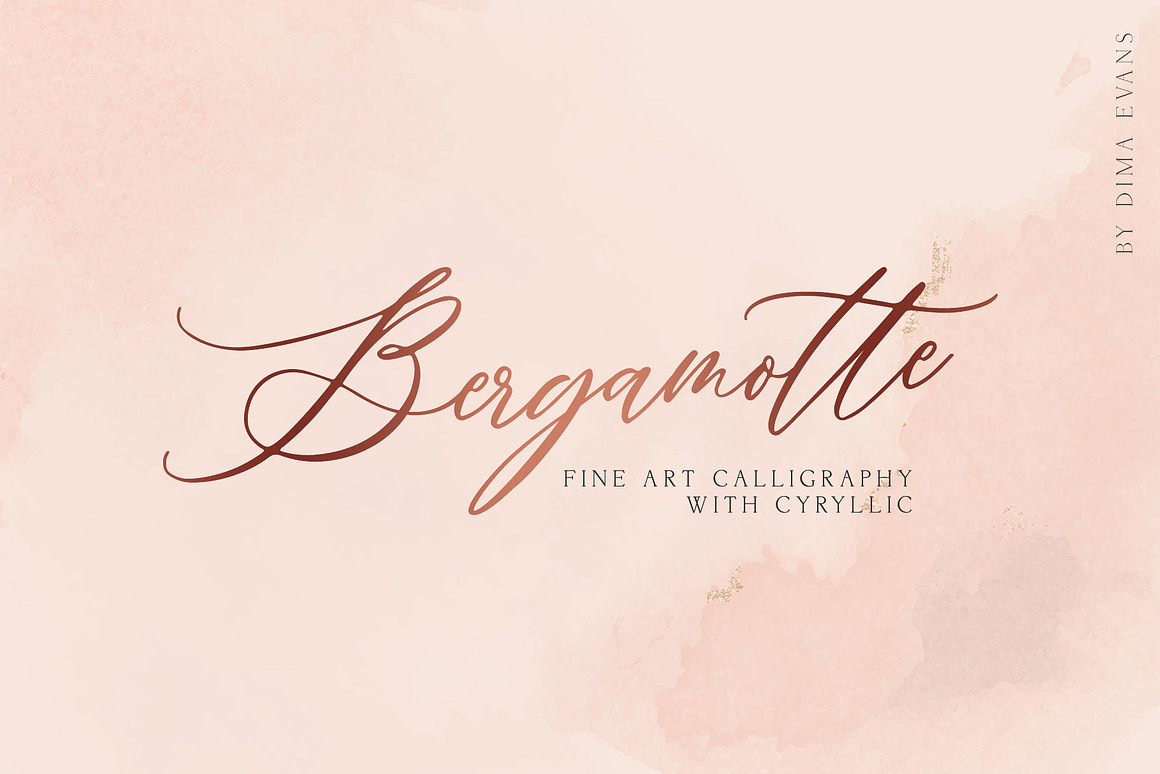
Bergamotte Fine Art Calligraphy
Bergamotte Fine Art Calligraphy is perfect for museum exhibition materials, art gallery invitations, fine art book publishing, cultural institution branding, sophisticated wedding stationery, luxury brand identity, elegant greeting cards, prestigious award certificates, refined hospitality signage, and distinguished academic publications.
Bergamotte Fine Art Calligraphy is exciting because it masterfully embodies the pinnacle of artistic refinement and calligraphic excellence, creating a typeface that represents the intersection of fine art, cultural sophistication, and timeless elegance. This font brings artistic gravitas and cultural distinction to any project, making it ideal for institutions and brands that want to convey artistic heritage, intellectual sophistication, and the elevated beauty of fine art traditions. Its cultured character and artistic appeal create an atmosphere of refined excellence that resonates with audiences who appreciate the highest forms of artistic expression.
Bergamotte Fine Art Calligraphy family includes regular, medium, and ornate weights, plus artistic flourishes, cultural ornaments, and fine art decorative elements, providing designers with comprehensive tools for creating sophisticated calligraphy and culturally distinguished brand experiences.
This exquisite artistic typeface combines traditional calligraphy mastery with contemporary design excellence, making Bergamotte Fine Art Calligraphy Free Download a premium choice for projects celebrating artistic heritage and cultural refinement. The font's artistically crafted letterforms feature elegant proportions and fine art styling that reflect the masterful skill and cultural significance of traditional calligraphy and artistic expression.
Whether you're designing museum catalog materials, fine art exhibition branding, or prestigious cultural event invitations, Bergamotte Fine Art Calligraphy delivers unmatched artistic authenticity and cultural sophistication. The font excels in both intimate gallery applications and large-scale cultural environments where artistic heritage and refined taste create transformative cultural experiences.
Cultural professionals choose Bergamotte Fine Art Calligraphy for its ability to instantly communicate artistic excellence and cultural refinement while creating emotional connections with audiences seeking authentic fine art experiences and cultural sophistication. The font's artistic character makes it particularly effective for museums, galleries, and luxury cultural institutions.
Each character reflects the masterful artistry of traditional calligraphy, featuring elegant strokes and refined proportions that create typography as beautiful and culturally significant as Renaissance manuscripts, museum masterpieces, and the finest expressions of human artistic achievement.